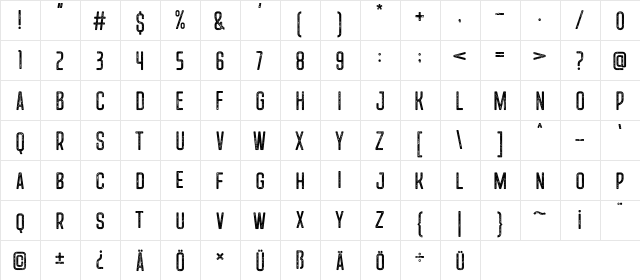
How Dare You Regular
| Foundry | TypeFactory |
| Designer | TypeFactory |
Design Context for How Dare You Typeface
How Dare You takes a measured approach to typography — its balanced proportions and neutral character make it a reliable workhorse for both digital and print work.